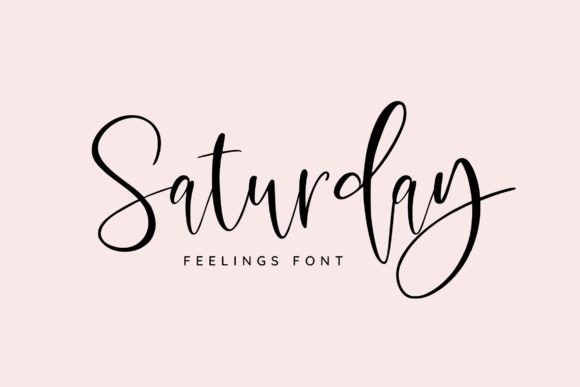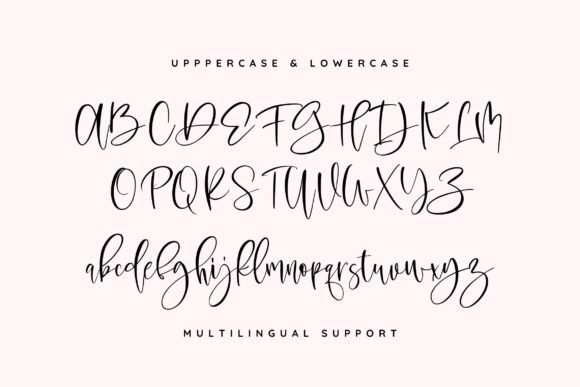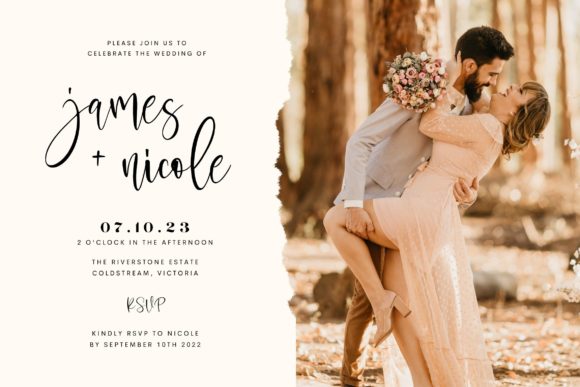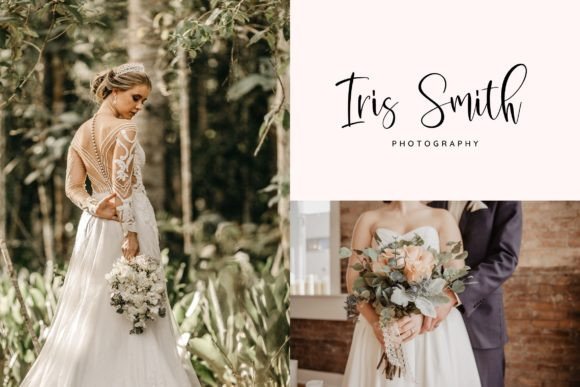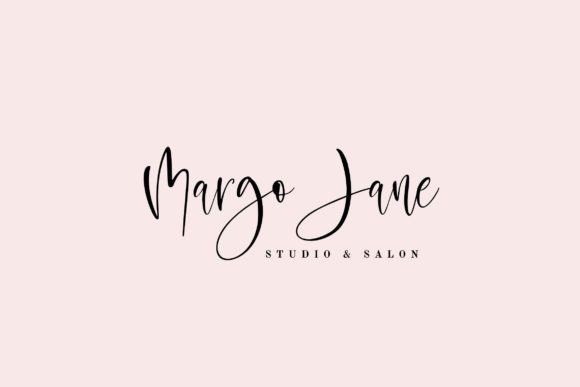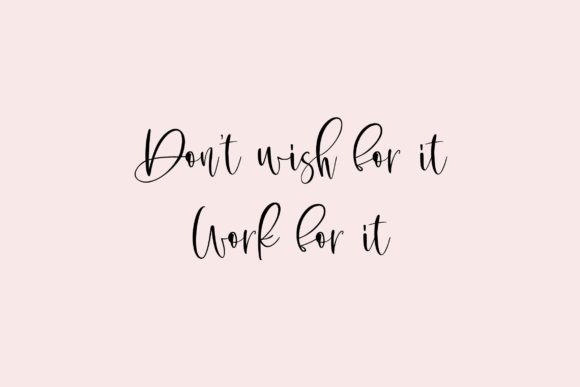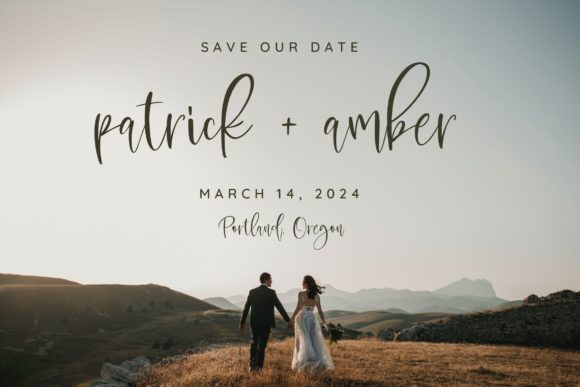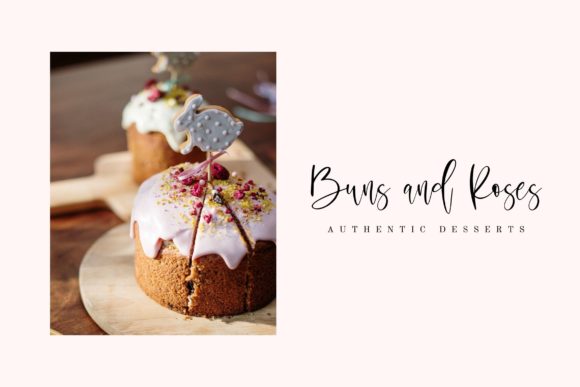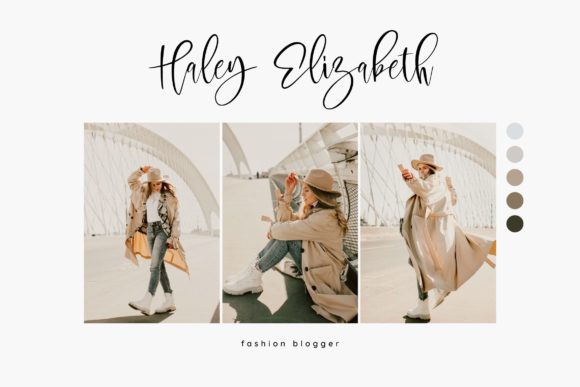
Saturday Feelings Font
About Saturday Feelings Font
Enter the world of Saturday Feelings – a bouncy, hand-lettered brush script font that adds a vibrant touch to your creative projects. Crafted with care, this font is designed to bring a lively and spontaneous feel to various applications, making it perfect for greeting cards, product packaging, printed quotes, logotypes, apparel design, and more. Whether you’re seeking to inject a playful vibe into your designs or simply want to add a handwritten charm, Saturday Feelings is the ideal choice.
What sets Saturday Feelings apart are its thoughtful features, including ligatures and stylistic alternates. These elements provide a layer of customization to your text, allowing you to experiment with different looks and create a truly unique visual experience. Whether you’re working on a logo, a quote for print, or a stylish apparel design, these extras enhance the versatility of Saturday Feelings.
To add to its user-friendly features, Saturday Feelings is already PUA encoded. This means easy access to ligatures and alternates, streamlining your creative process. The font invites you to explore and play with its characters, making it a delightful addition to your typographic toolkit.
Embrace the lively and spontaneous energy of Saturday Feelings as it becomes the heartbeat of your creative endeavors. Picture the brush strokes bringing a touch of joy to your greeting cards, an extra dash of character to your product packaging, or a playful twist to your logotypes. Let Saturday Feelings be the conduit through which your projects come alive with a handwritten, bouncy charm.